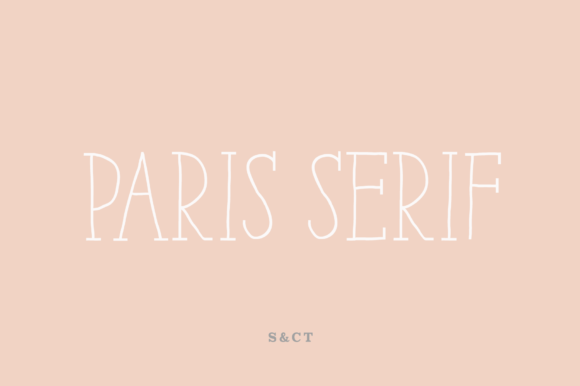
Step into the captivating world of Paris Serif, a font that is the darling of kids' books. This avant-gardist creation takes you on a journey of retro beauty and contemporary sophistication with its Art Deco ornaments and a family of extended glyphs that span numerous languages.
Paris Serif is a celebration of the playful imagination of kids, and it's designed to breathe life into your creative projects. Its graceful curves and clean lines evoke a sense of nostalgia, conjuring up images of classic storybooks and comic books that once filled your shelves.
With Paris Serif, you have the power to transport young readers to faraway lands, introduce them to intriguing characters, and captivate their imaginations with every turn of the page. It's the perfect font to bring the magic of storytelling to life, and it's made especially for the enchanting world of children's literature.
But why stop at kids' books? Paris Serif's retro charm and Art Deco flair make it a versatile choice for a wide range of marketing endeavors. Imagine using it to create eye-catching logos, unforgettable branding, and social media content that pops. Its classic aesthetics and thin, all-caps design give it a unique personality that's sure to stand out from the crowd.
Whether you're a seasoned designer or just starting out, Paris Serif is the perfect font to inject a touch of playful sophistication into your creative projects. Its timeless elegance and undeniable charm will leave a lasting impression on your audience.